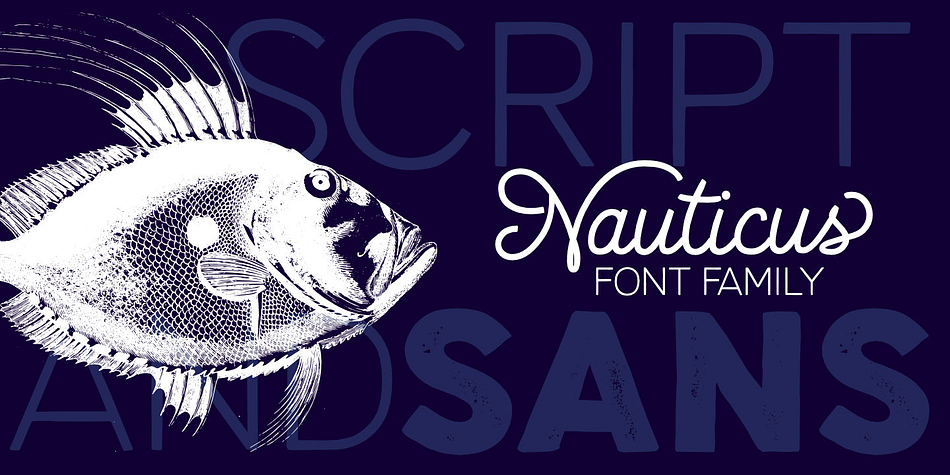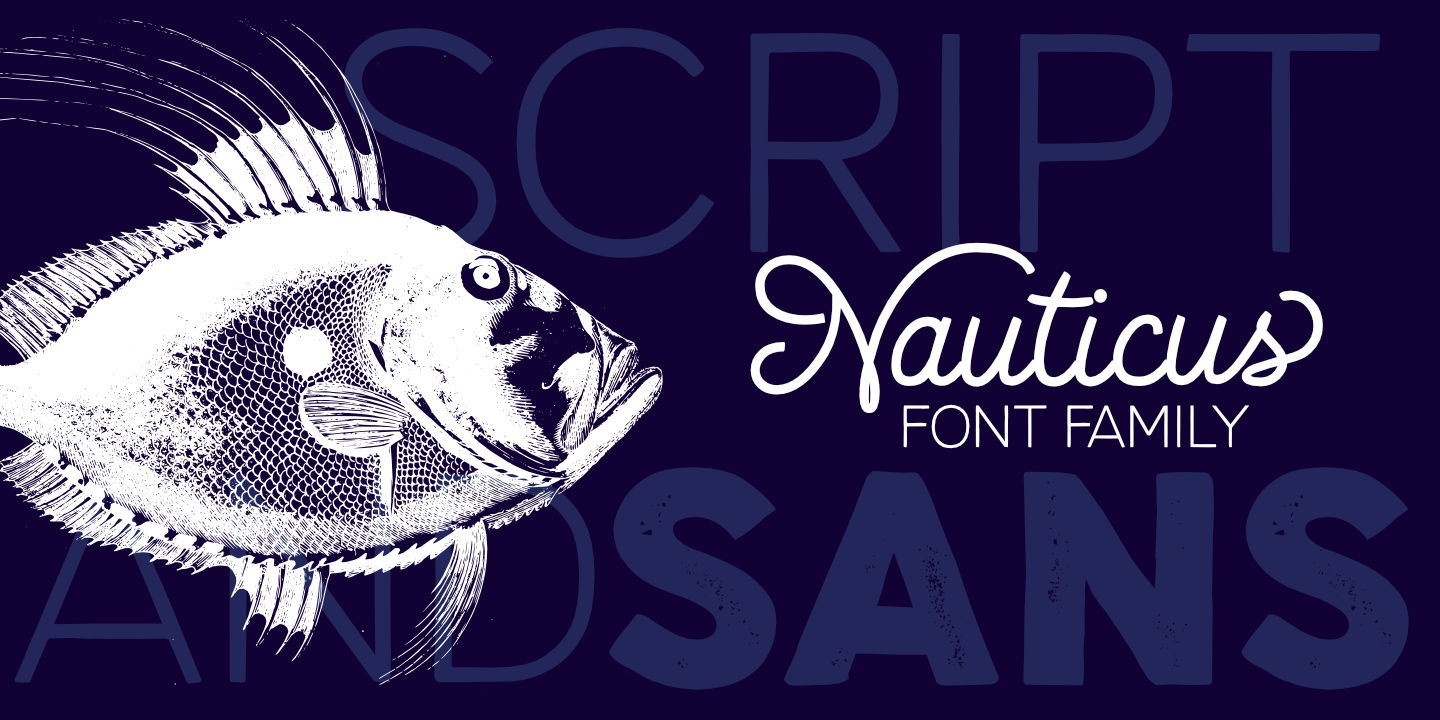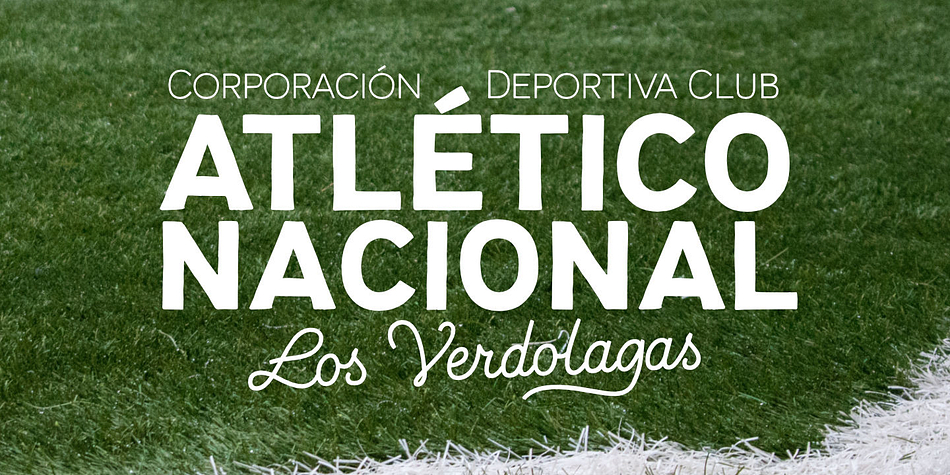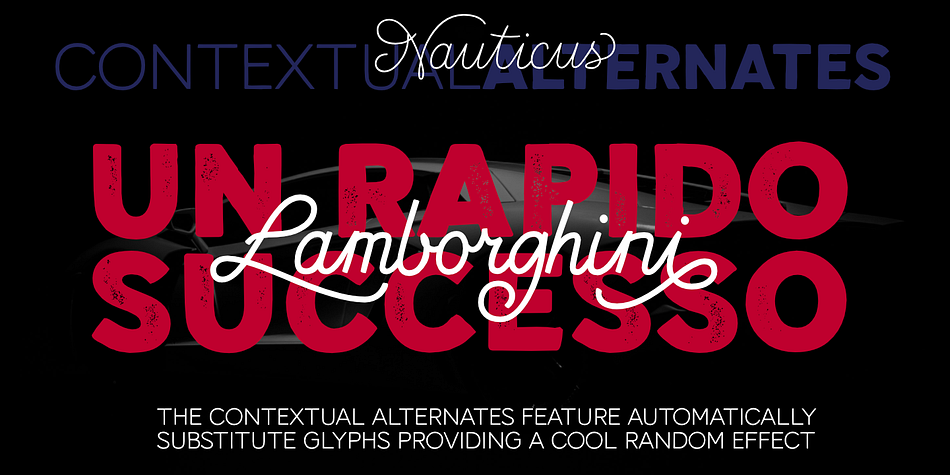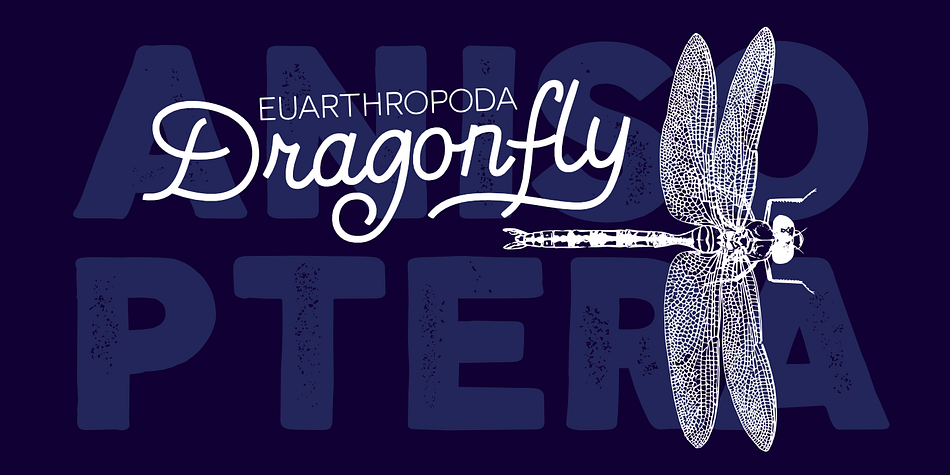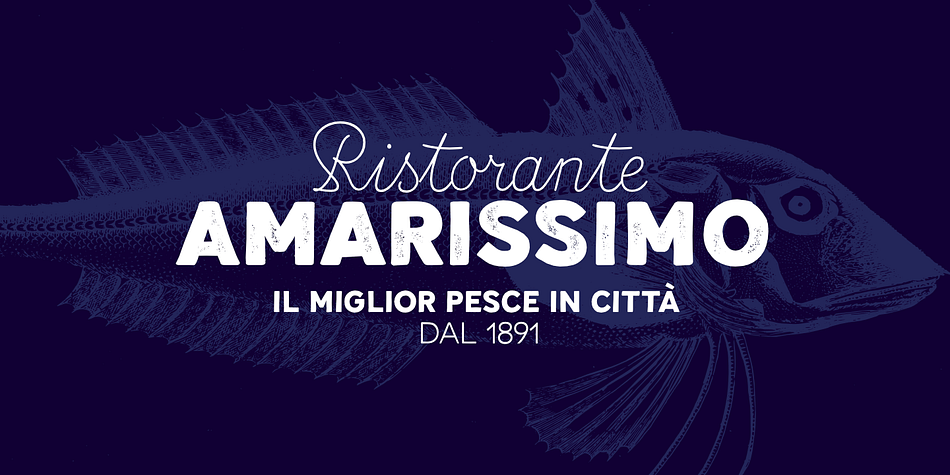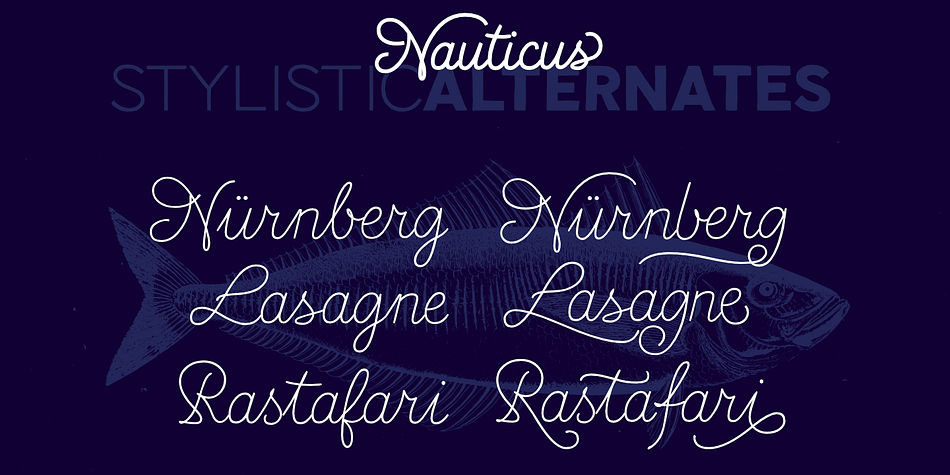
Designed by Bartek Nowak, Nauticus is a display sans and script font family. This typeface has six styles and was published by GRIN3 (Nowak).
Nauticus Sans is a hand-drawn, all caps, sans serif family. It features 4 different font weights: Thin, Regular, Bold and Bold Press. Every lowercase letter has three variations. When the font is used in OpenType-savvy applications, the 3 variants of glyphs are automatically alternated to achieve a random-like effect.
Nauticus Script is a handwritten, fully connected script with ligatures and contextual alternates to help with flow and readability.
Language support includes Western, Central and Eastern European character sets, as well as Baltic and Turkish languages.